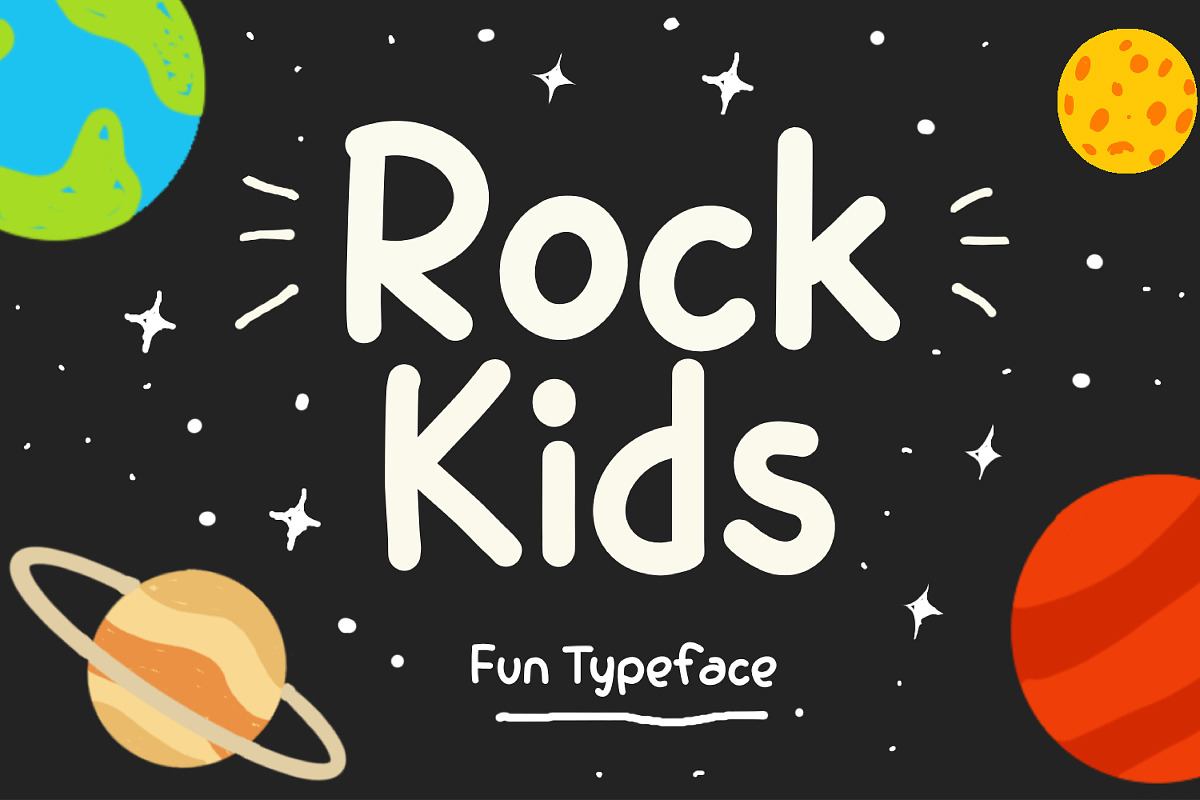
Rock Kids Fun Typeface Free Download is a playful, high-energy font made especially for kids’ designs that need a bold and fun personality. With its chunky letters, quirky shapes, and cartoonish style, this typeface is perfect for children’s books, birthday invitations, toy packaging, YouTube thumbnails, and more.
Its vibrant vibe and joyful appearance make it ideal for grabbing attention in a cheerful, creative way. Whether you’re designing for little rockstars or building a brand that’s full of energy, Rock Kids brings fun to the forefront.
Designers love it for its readability, expressiveness, and versatility across all types of playful content. Ready to rock your next project? Download Rock Kids Fun Typeface Free Download and bring a burst of colorful excitement to your designs!